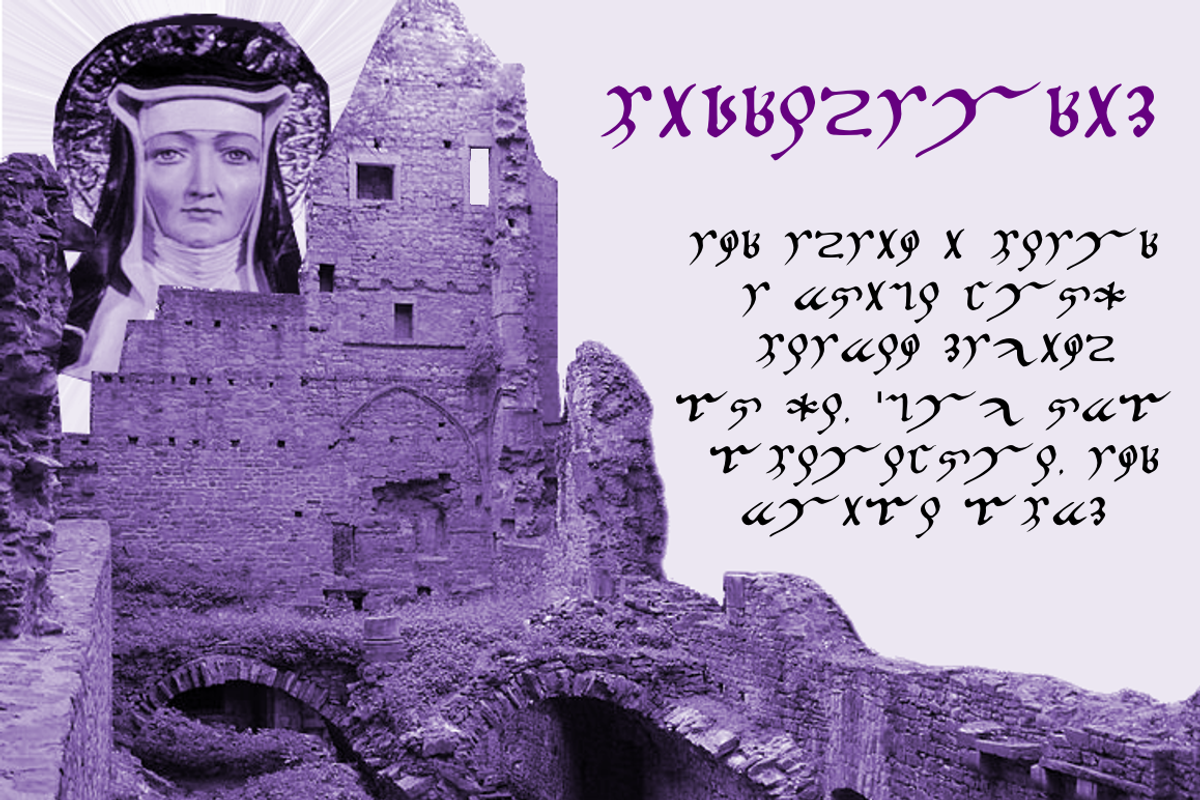
Hildegardis
Carrying on our series of historical ciphers we present Hildegardis. Hildegard von Bingen, or Hildegardis Bingensis, was an Abbess during the 12th century. She worked mainly at St. Rupertsburg writing many letters and books and composed music which can be heard on the radio now such is her popularity. She was recently made both a saint and a Doctor of the Catholic church, her career's output still being held in the highest regard long after her death. She was a mystic and also a creative women who recorded the first example of a constructed language. This alphabetic cipher was invented by her to obscure that language that was called “Lingua Ignota.” The exemplar was found in the Riesencodex, or giant book which weighs over 30 pounds (15Kg.) This font is an accurate cutting that contains all 25, these are duplicated across the capitals also for convenience, of the original glyphs in the Riesencodex and also what might be her actual "signature" done in her own hand also found in the Riesencodex. Packaged with character map and documentation in both OTF, TTF formats.